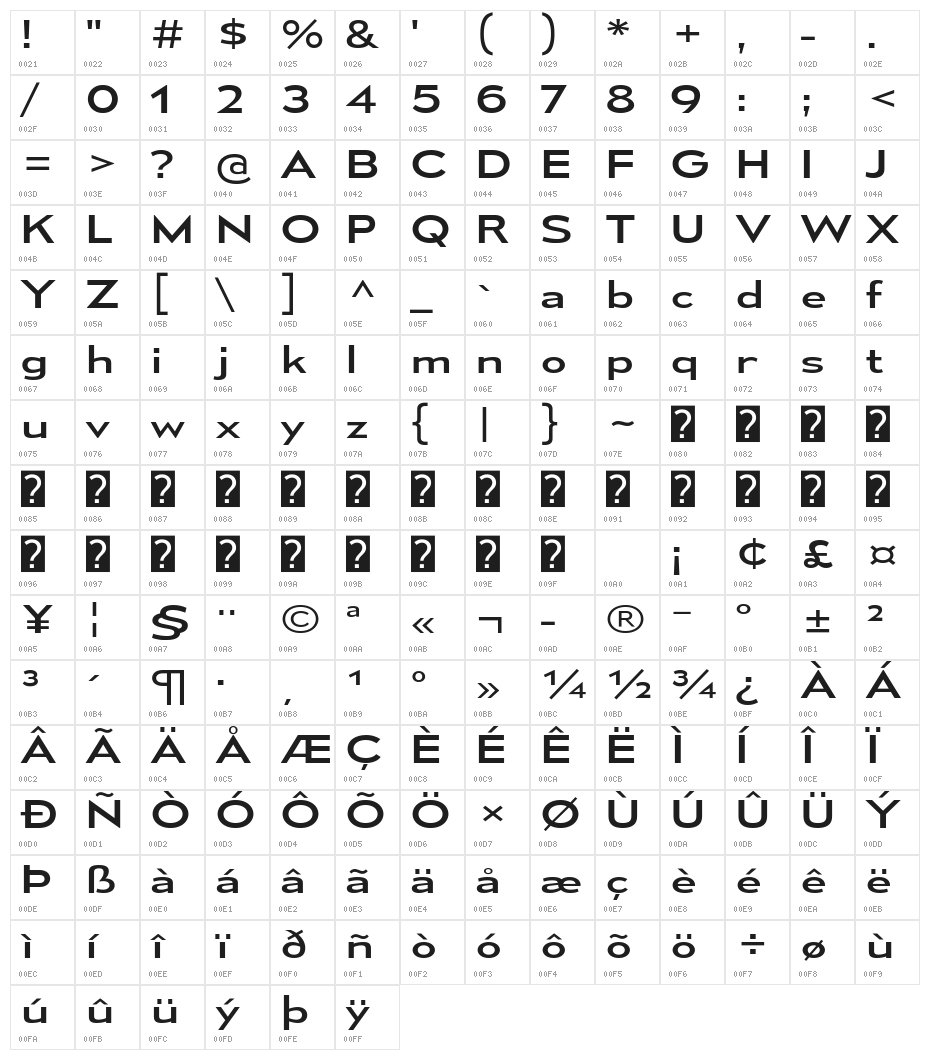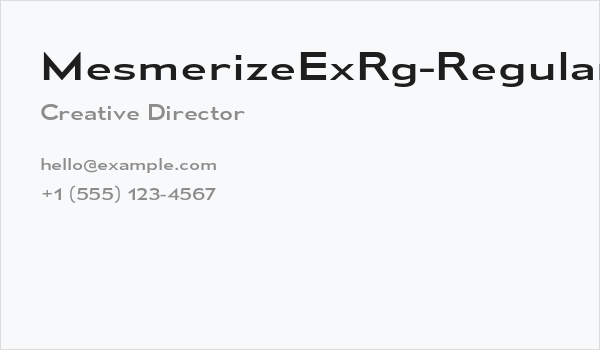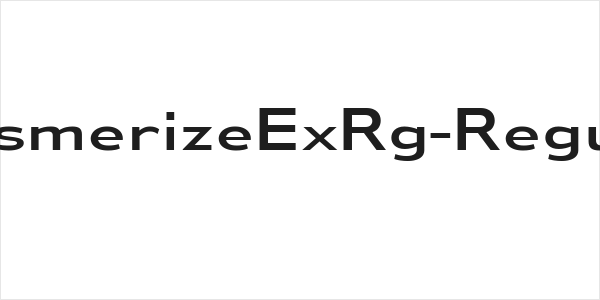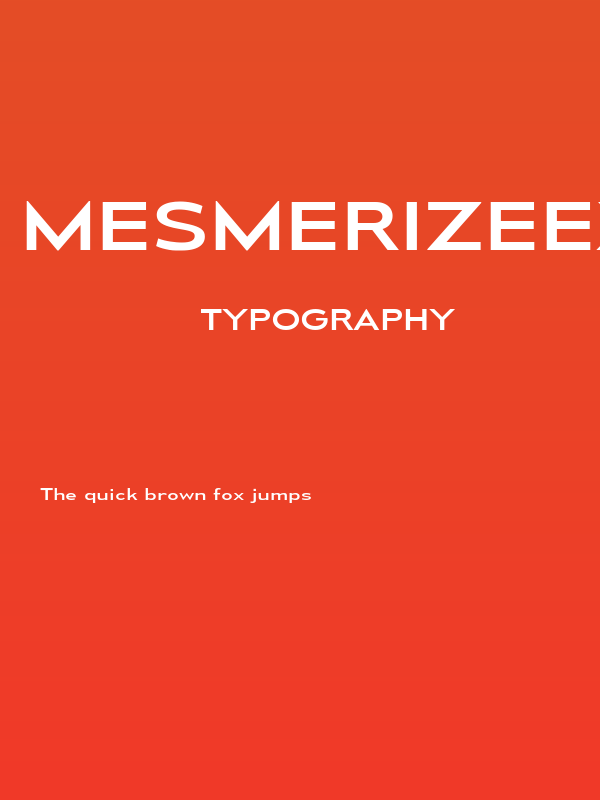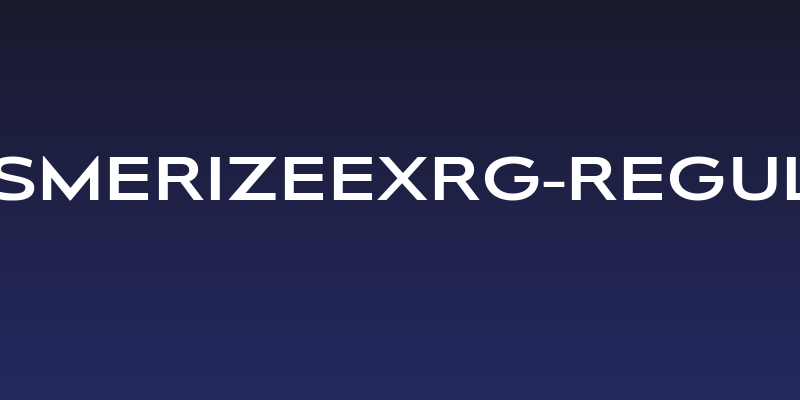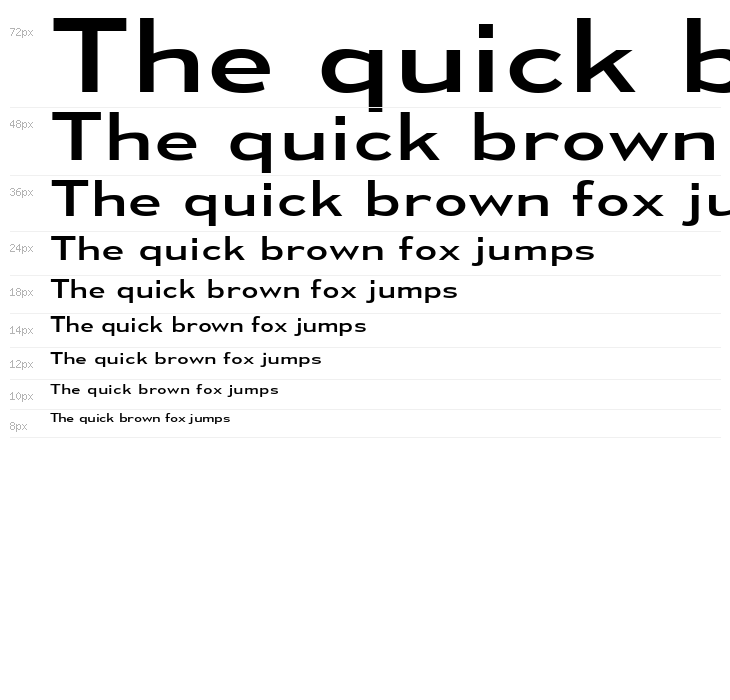
MesmerizeExRg-Regular Font
MesmerizeExRg-Regular Description
This font features a clean and modern sans-serif design with a focus on readability and simplicity. The characters are well-proportioned, with a consistent stroke width that provides a balanced and harmonious appearance. The uppercase letters are bold and assertive, while the lowercase letters maintain a friendly and approachable look. The numerals are clear and easy to distinguish, making them suitable for various applications. Special characters are included, offering versatility for different design needs. Overall, this font is ideal for projects requiring a contemporary and professional aesthetic.
| Proposed Projects | Ideal for branding, web design, advertising, and editorial projects. |